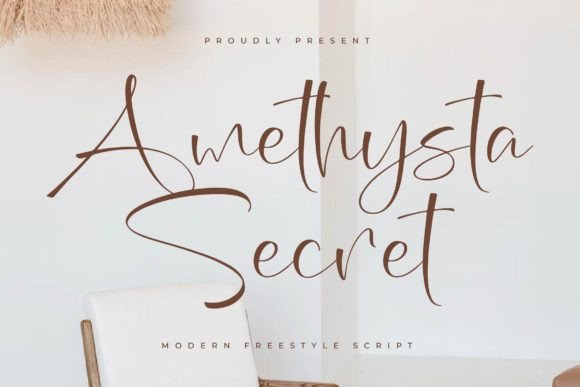
The Amethysta Secret Font: Elevate Your Designs with Luxury and Elegance
Have you ever been in the middle of a design project, and suddenly, you just can’t seem to find the right font? I recall a particularly frustrating experience while working on a luxury branding project for a high-end jewelry client. The brief was simple: create a logo that exuded opulence and sophistication. But, as I scrolled through my font library, nothing seemed quite right. That was until I stumbled upon the Amethysta Secret font. This stunning Modern Freestyle Script from Letterena has been a game-changer for my design workflow, and I’m excited to share my experience with you.
An Honest Review of Amethysta Secret
- ✨ Luxurious feel: Amethysta Secret has an unmistakable air of luxury, making it perfect for high-end branding, packaging, and advertising projects.
- ✅ Versatility: This font is incredibly versatile and can be used for a wide range of projects, from logos and posters to mugs and t-shirts.
- 💫 Elegant swashes: The font features beautiful swashes that add a touch of elegance to any design.
- 📚 Extensive glyphs: With a vast array of glyphs, you can experiment with different styles and create unique designs.
While Amethysta Secret is an exceptional font, there are a few minor quirks to be aware of:
- 🤔 Occasional kerning issues: As with many script fonts, you may encounter some kerning issues, particularly with certain letter combinations.
- ⚠️ Not ideal for body text: Due to its elegant, cursive nature, Amethysta Secret is best suited for headlines, titles, and short paragraphs rather than lengthy body text.
- Experiment with OpenType features, such as swashes and stylistic alternates, to add a personal touch to your design.
- Explore the various OpenType features, including glyphs, swashes, and stylistic alternates, to elevate your design.
The Designer Inspiration Behind Amethysta Secret
Although the origins of Amethysta Secret are shrouded in mystery, it’s believed that the font was inspired by the elegance and sophistication of 18th-century calligraphy. The creator, Letterena, likely drew inspiration from the flowing lines and ornate details of classic scripts, infusing them with a modern twist.
| Font Name | Amethysta Secret Font |
| Author | Letterena Studios |
Q: What type of projects is Amethysta Secret best suited for?
A: Amethysta Secret is ideal for luxury branding, packaging, advertising, and any project that requires an elegant, high-end feel.
Q: Is Amethysta Secret difficult to read?
A: As a script font, Amethysta Secret can be more challenging to read than sans-serif fonts. However, it’s still legible and perfect for headlines, titles, and short paragraphs.